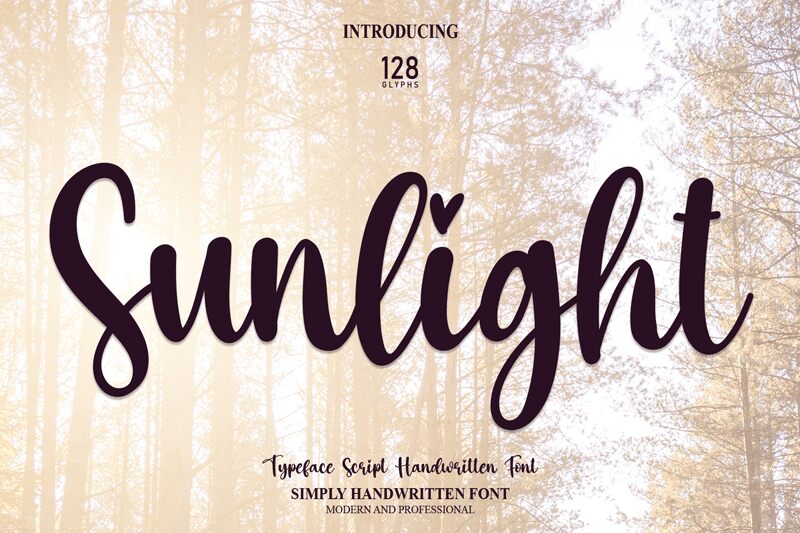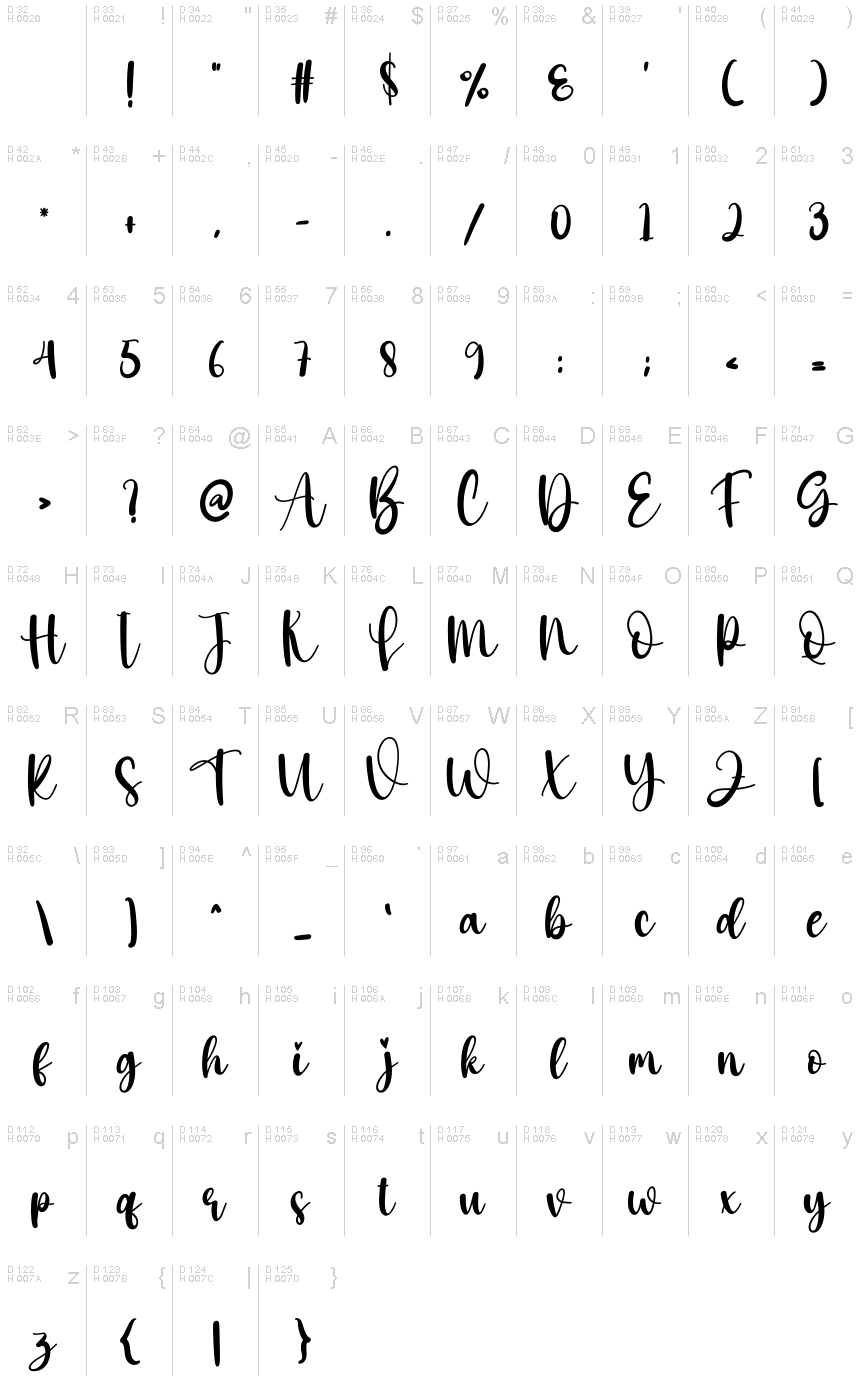
Sunlight
Sunlight, a captivating handwritten font designed by scratchones, exudes warmth and elegance. Its fluid strokes and natural curves add a touch of authenticity to any project. Perfect for wedding invitations, heartfelt quotes, or personalized stationery, this semi-bold typeface lends a personal and intimate feel to your designs. Whether you're creating a logo for a boutique bakery or designing an inspirational blog banner, Sunlight is the ideal choice to infuse your projects with a sense of effortless grace and charm. Let this enchanting font illuminate your creative endeavors with its radiant presence.
The latest style letters are perfect for wall displays, wedding invitations, social media post logos, advertisements, product packaging, product designs, labels, photography, watermarks, invitations, stationery, and any project that requires taste handwriting.